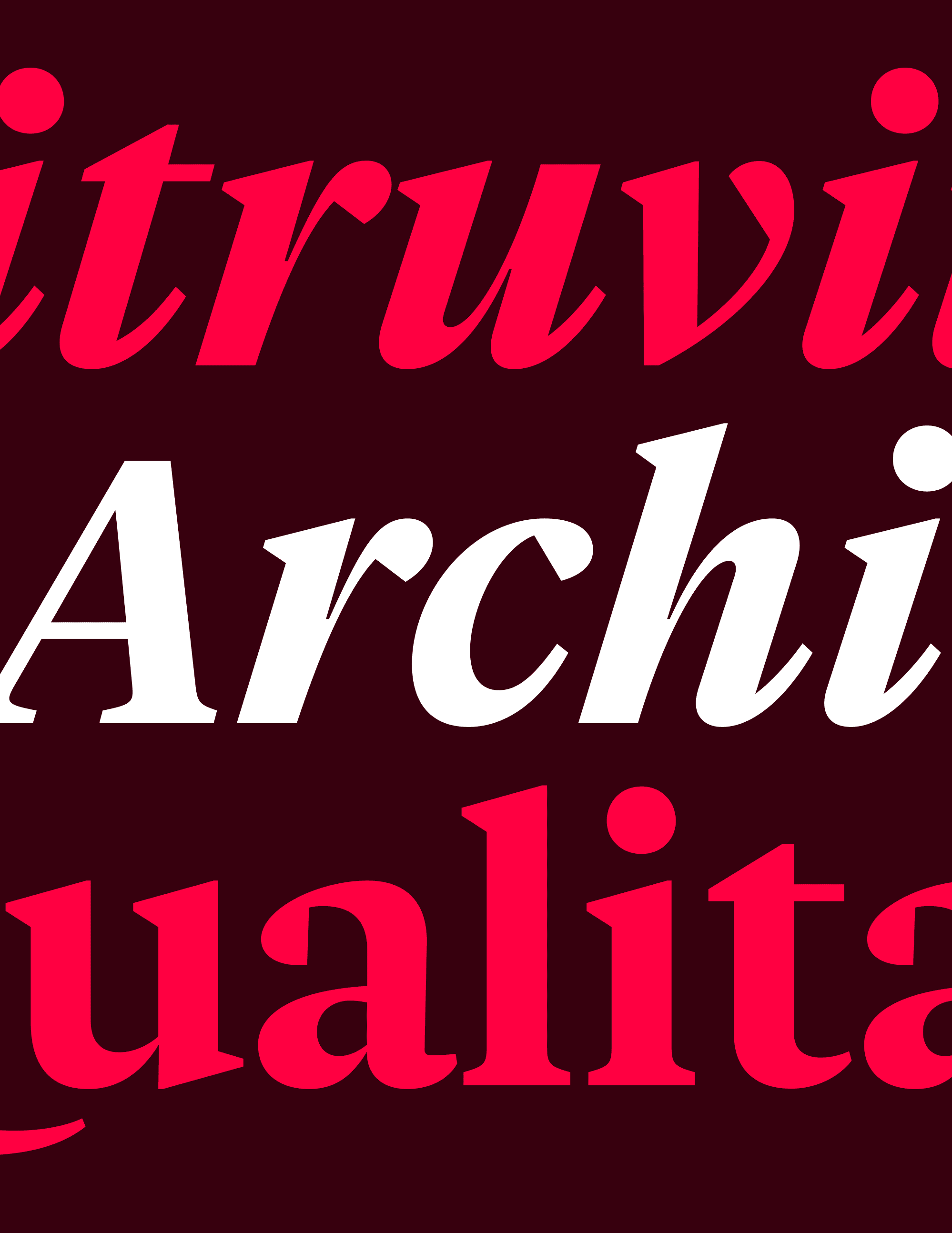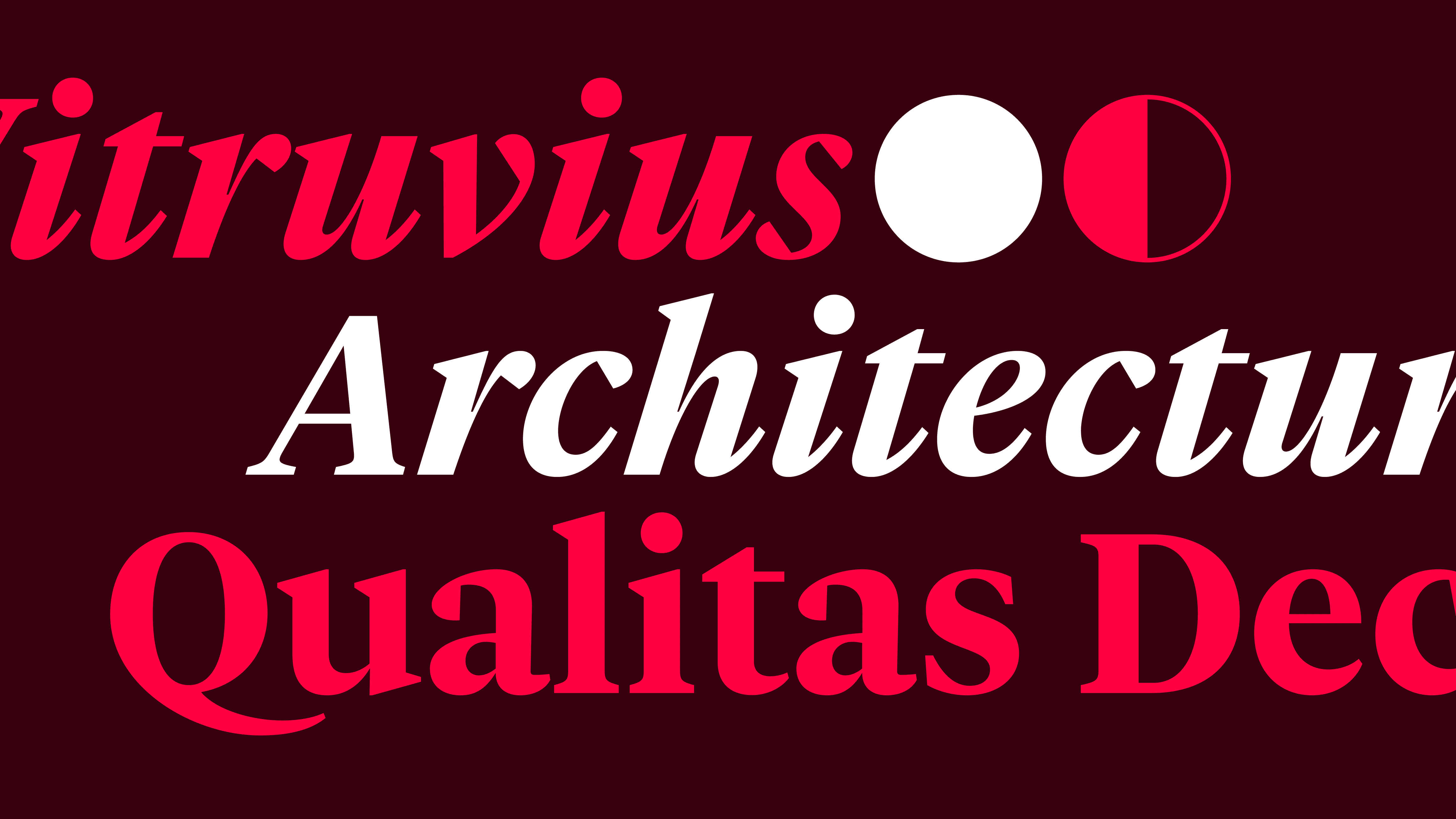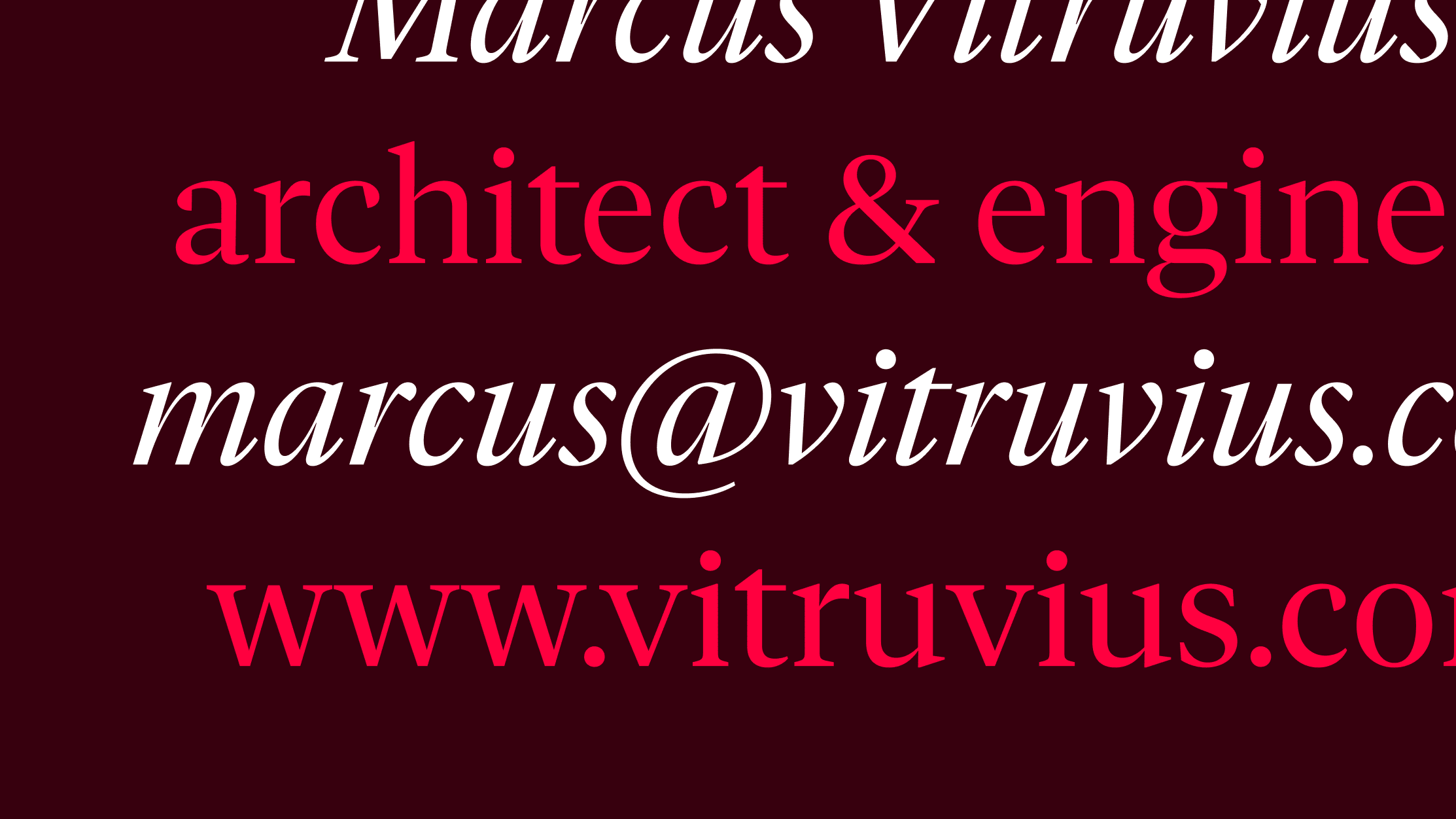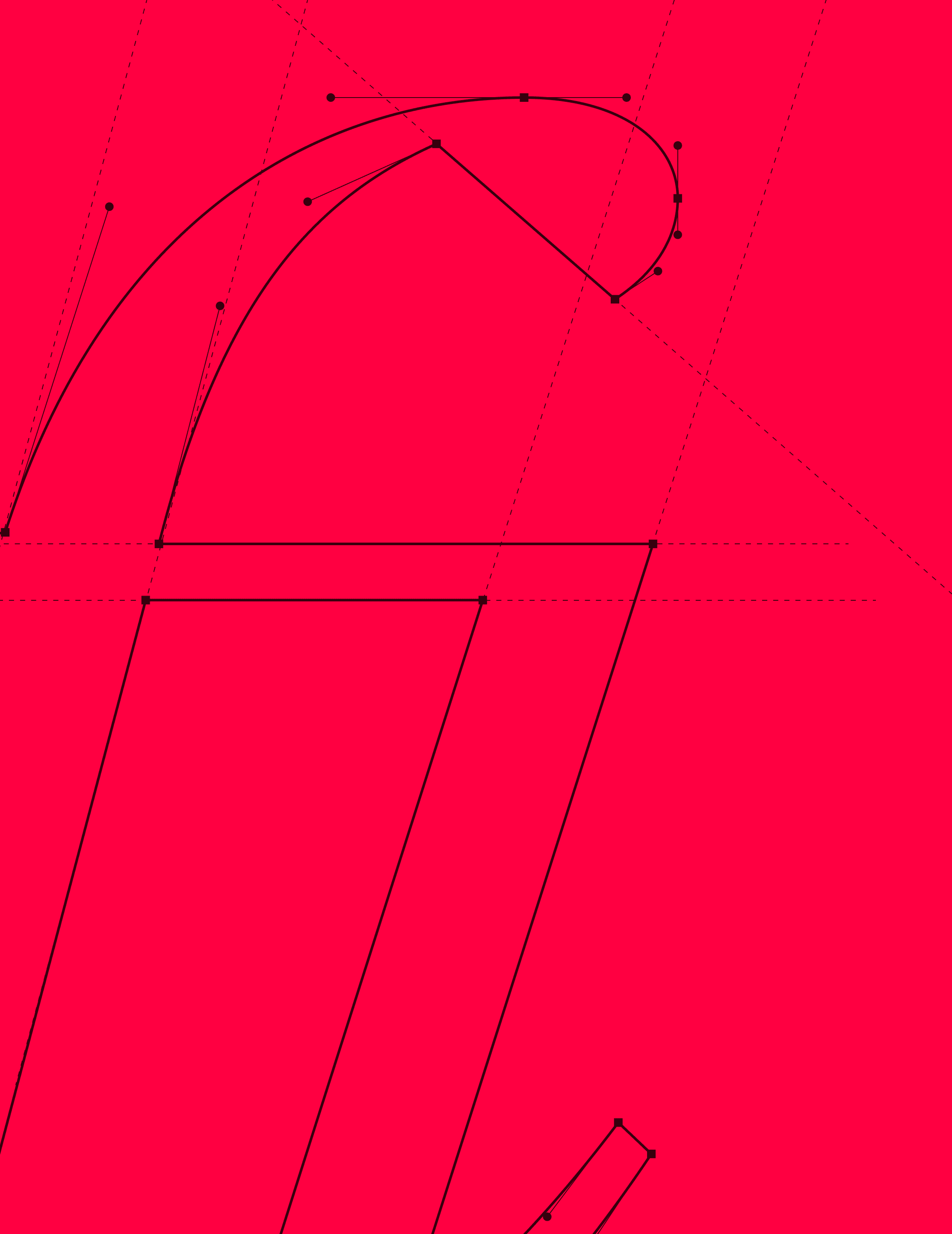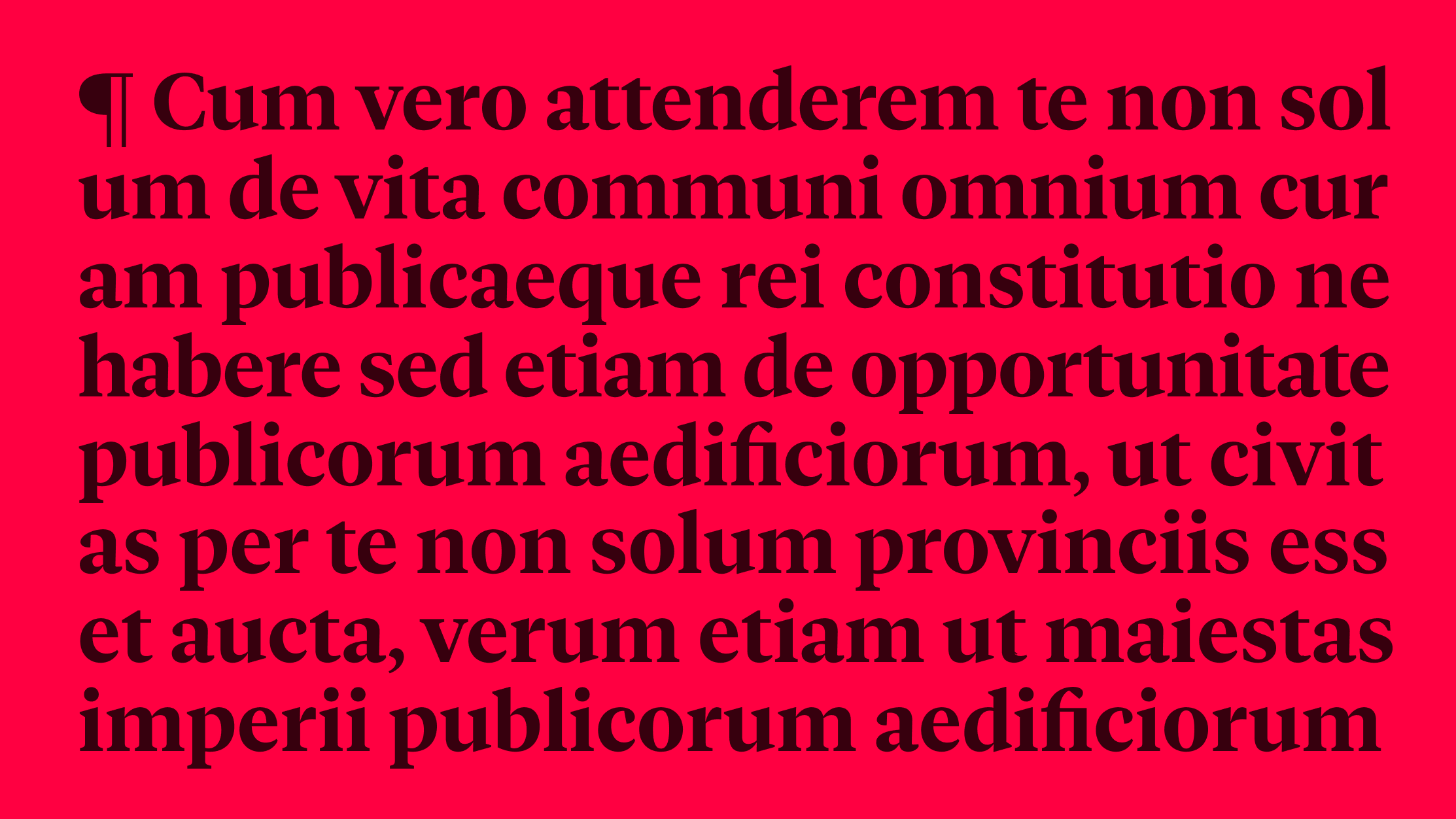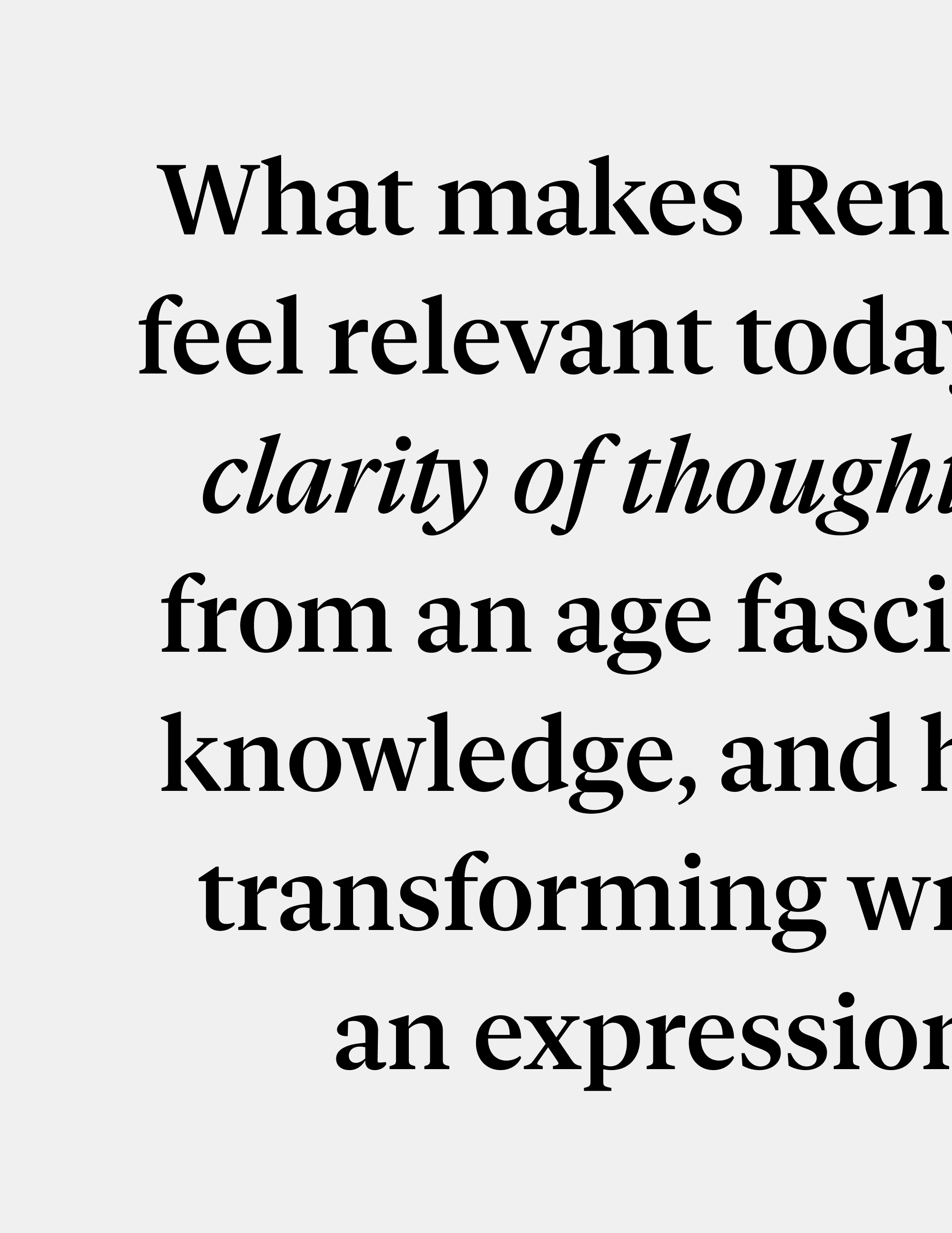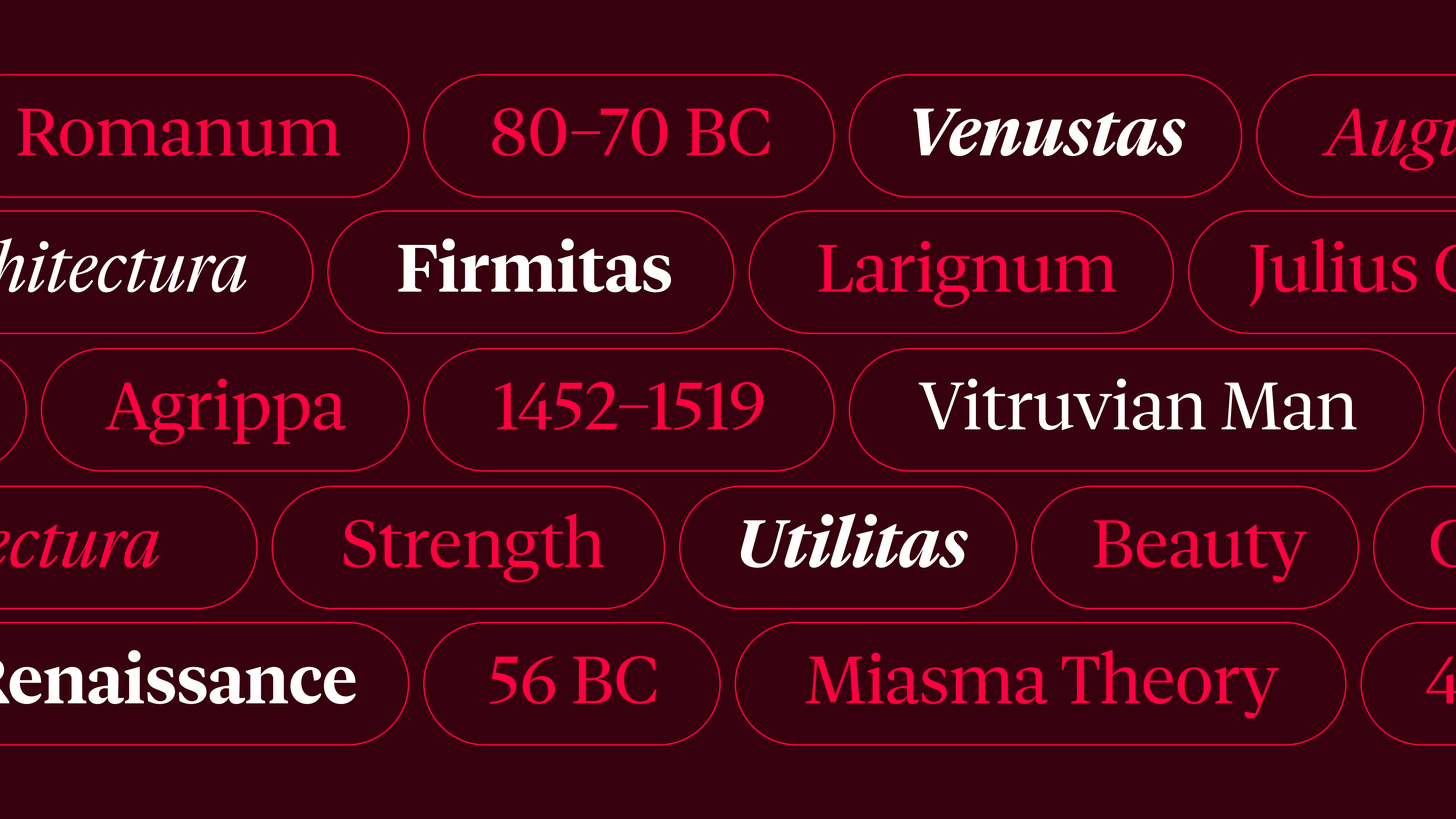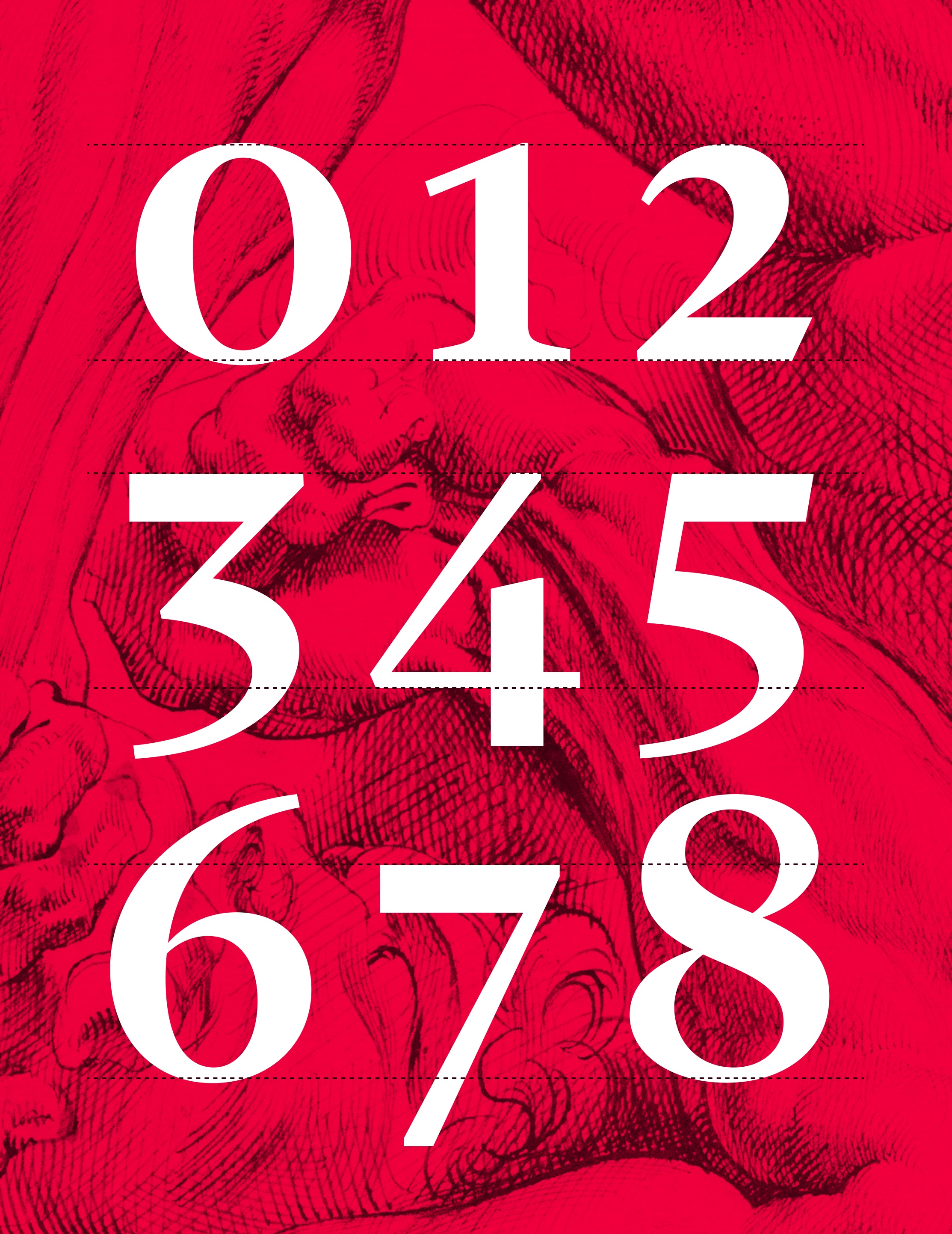
Vitruv Headline
Vitruv Headline is a Renaissance-inspired serif designed for medium to large sizes. Balancing refined details, moderate contrast, and readability, it offers versatility for headlines. Also available in Vitruv Display and Vitruv Text.